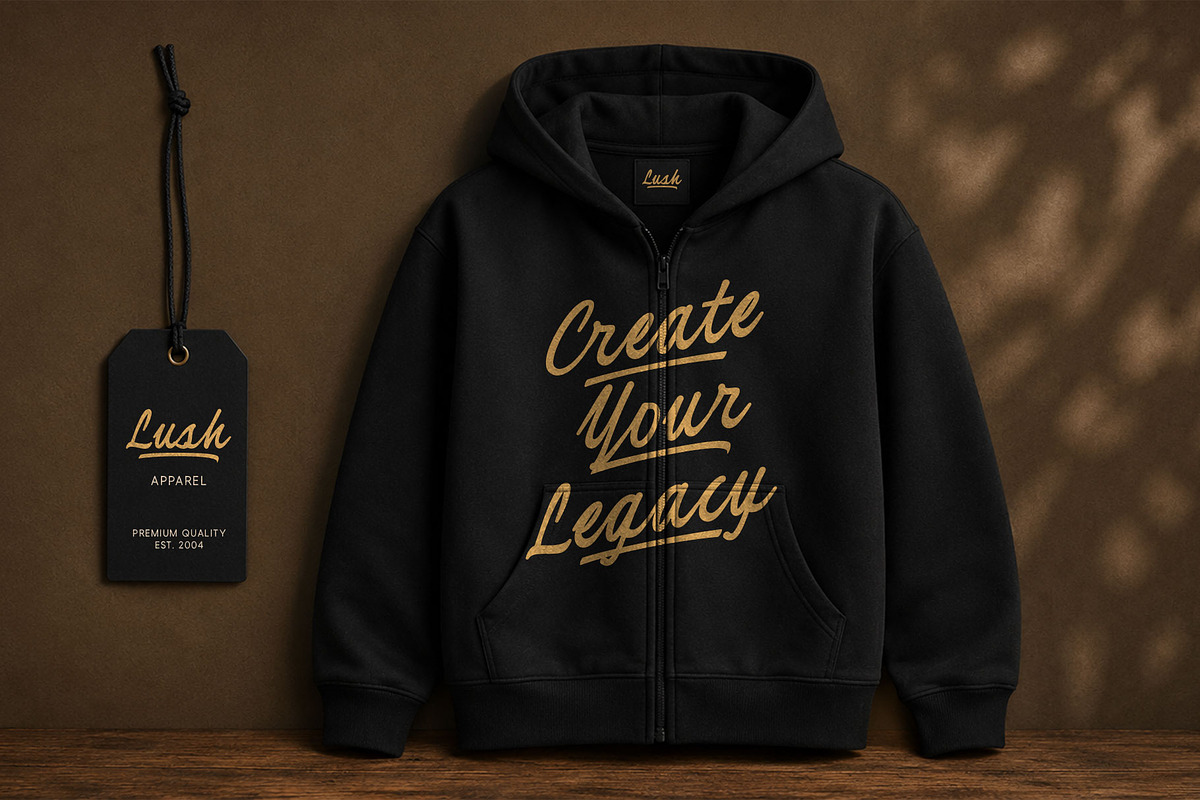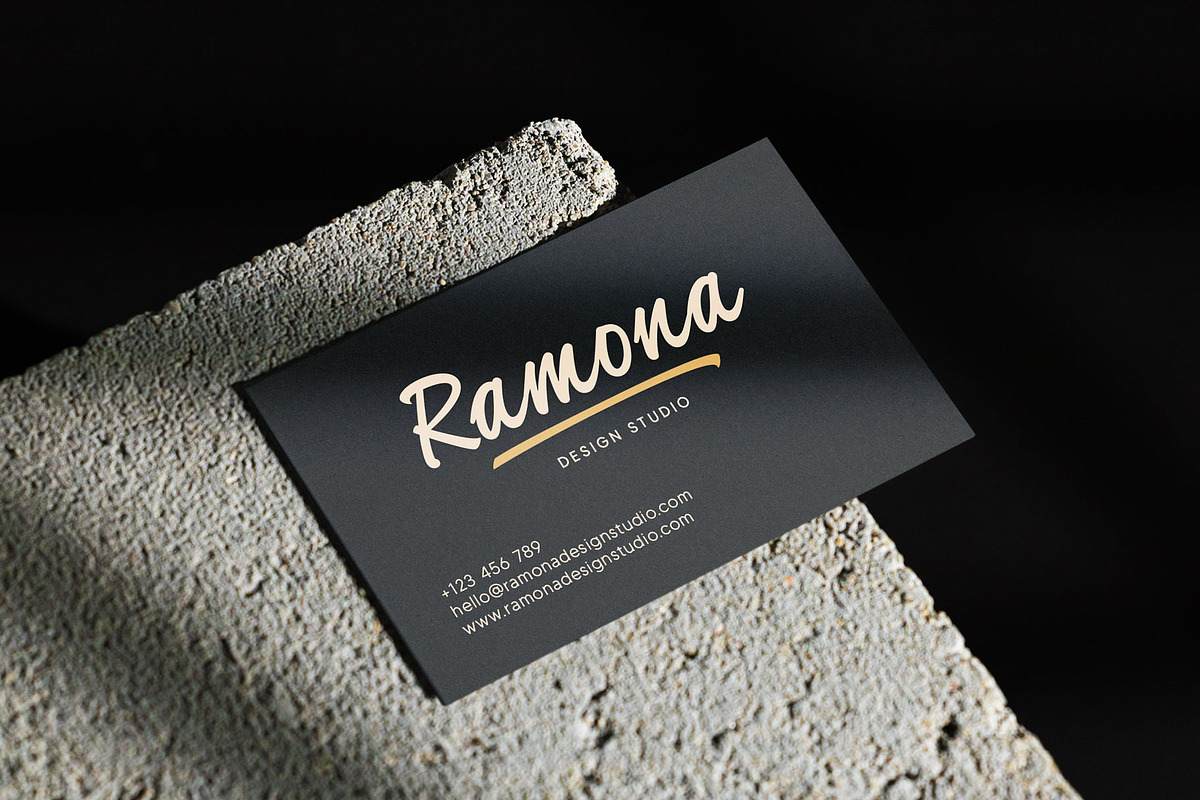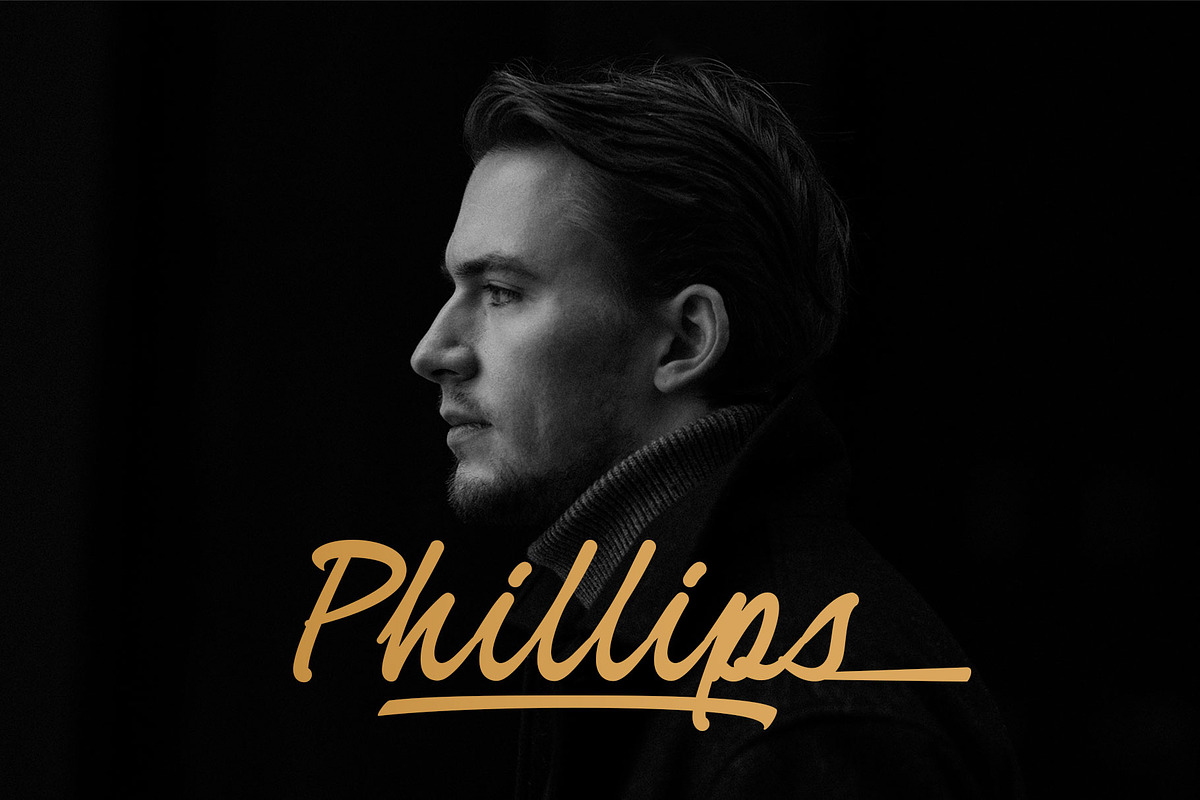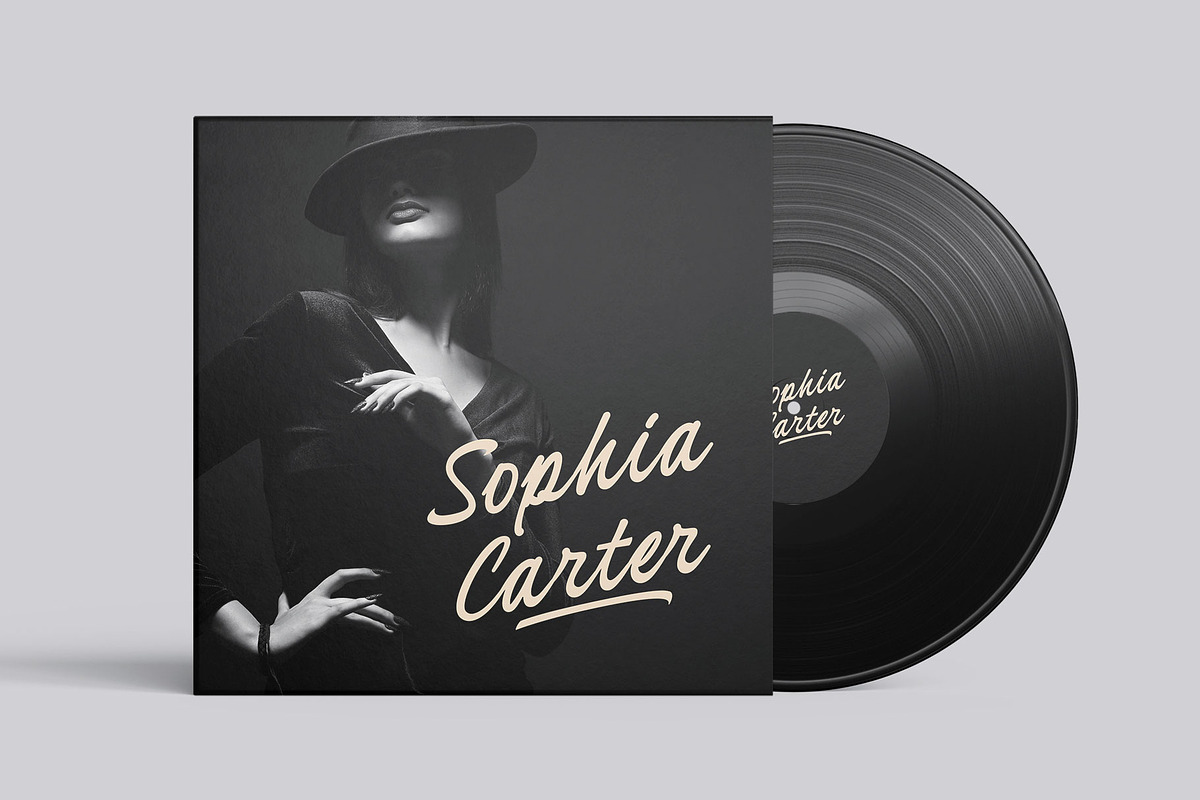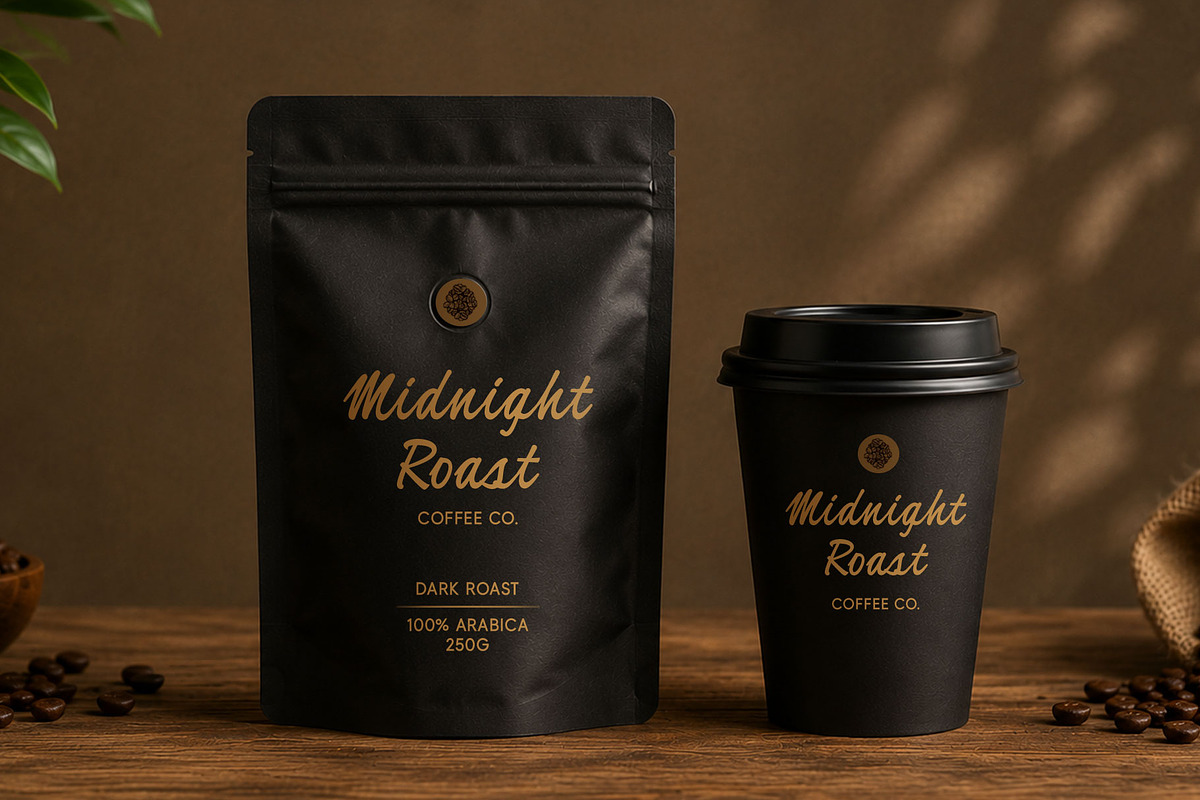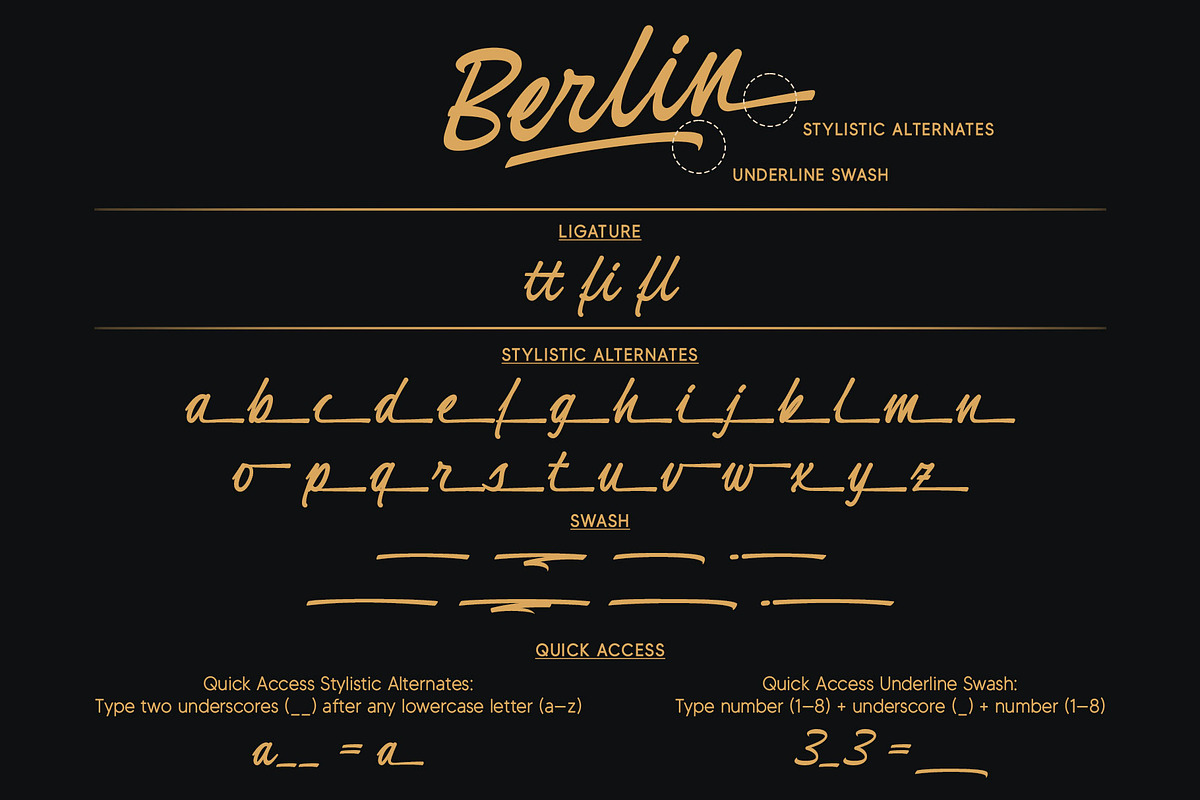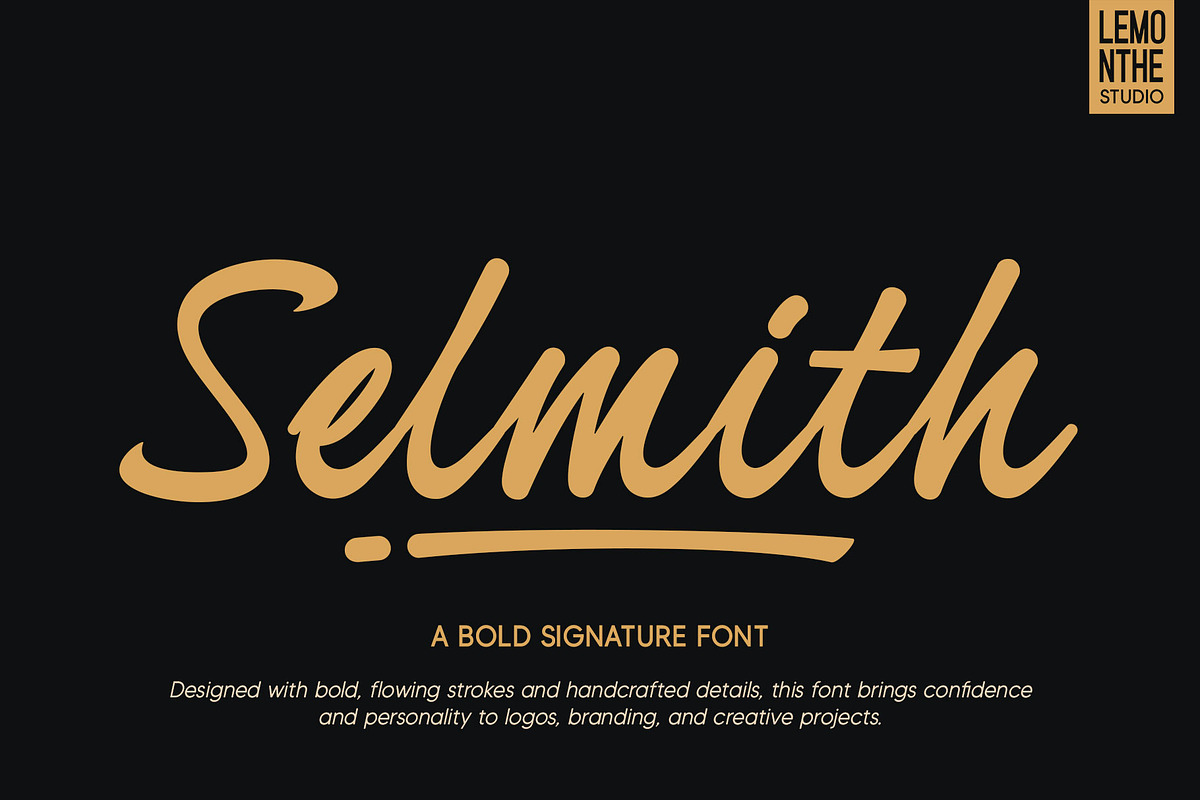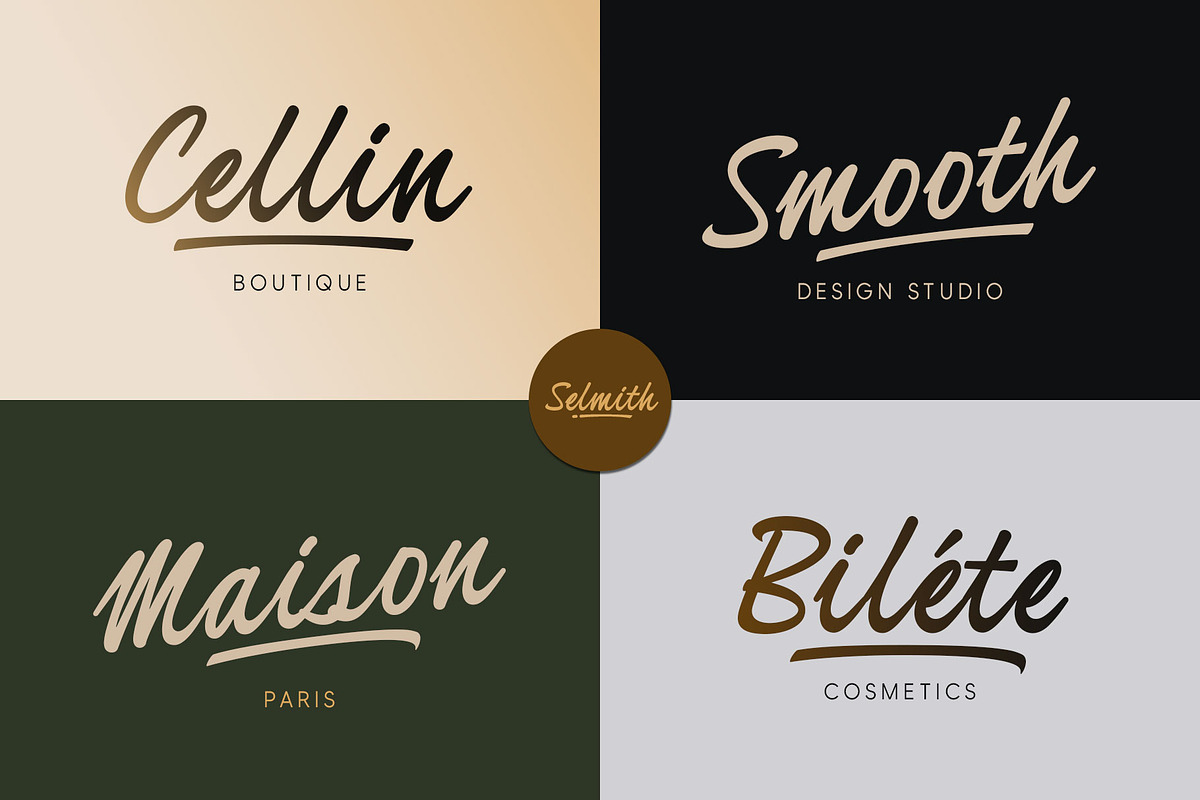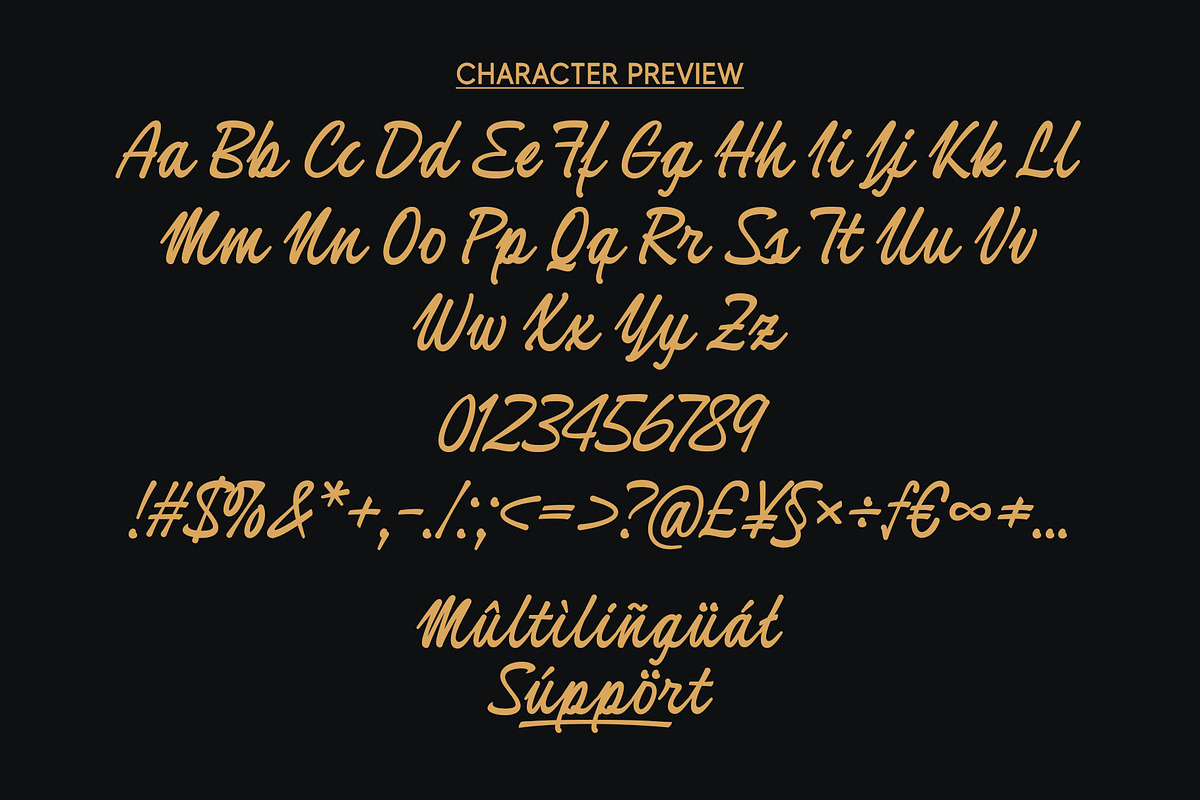
Selmith | Bold Signature
Selmith is a bold signature font that combines expressive handwritten strokes with a refined handcrafted feel, creating a confident and timeless look for any design. Carefully crafted to balance elegance and strength, it offers a natural writing flow while maintaining excellent readability for logos, branding, packaging, apparel, social media graphics, posters, business cards, and other creative projects.
Whether you're creating a memorable logo, building a premium brand identity, or designing stylish product packaging, this font adds a distinctive personality that instantly stands out. Its bold yet elegant character makes it perfect for fashion branding, coffee branding, restaurant branding, cosmetic packaging, product labels, magazine headlines, merchandise, invitations, and signature-style typography.
Swash
Numerals and Punctuation
Quick Access
Stylistic Alternates: Type two underscores (__) after any lowercase letter (a–z)
Swash: Type number (1–8) + underscore (_) + number (1–8). Example: 1_1, 2_2, 3_3, 4_4, 5_5, 6_6, 7_7, 8_8